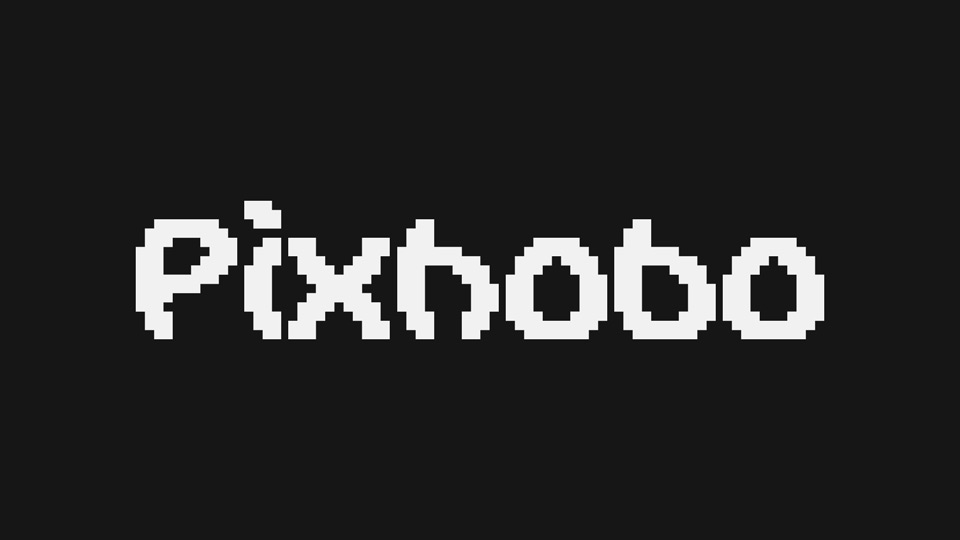
Download Pixhobo font, a pixel typeface inspired by Hobo designed by Morris Fuller Benton in 1910. With a combination of Art Nouveau and pixel style, Pixhobo font works perfect at big sizes and display purposes.
Designer: Piotrkowy